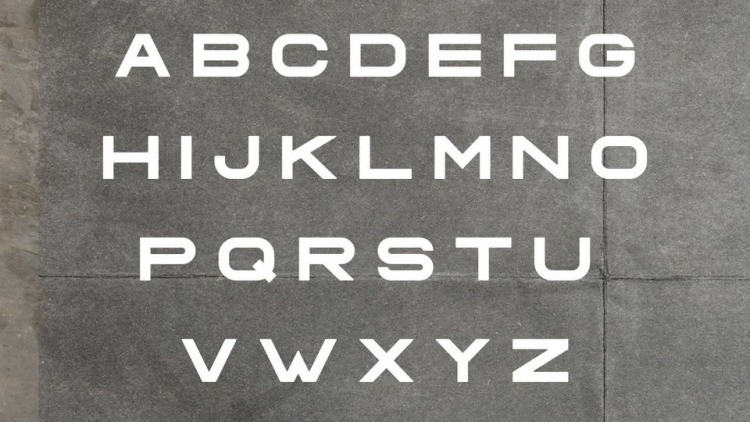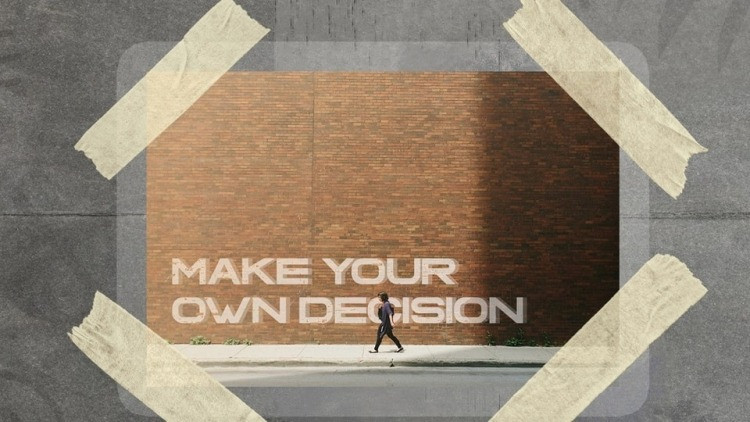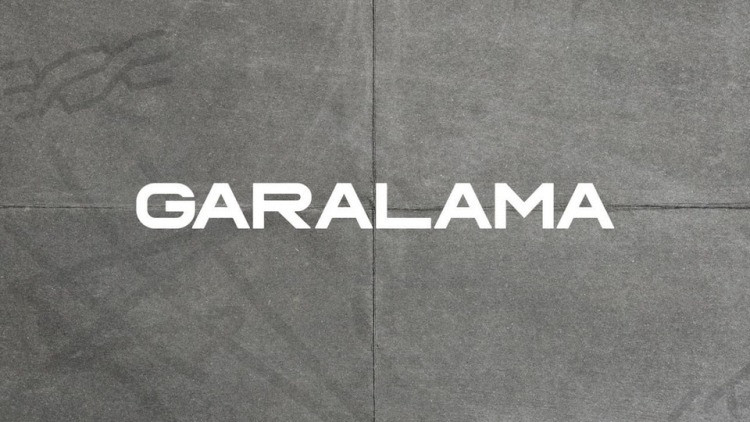
Garalama Font
Garalama Sans Serif Font is a bold and strong sans display typeface designed when as a beginner with lettering. Tried to show the urban style in this font and decided to make it display font. Hope you like it!